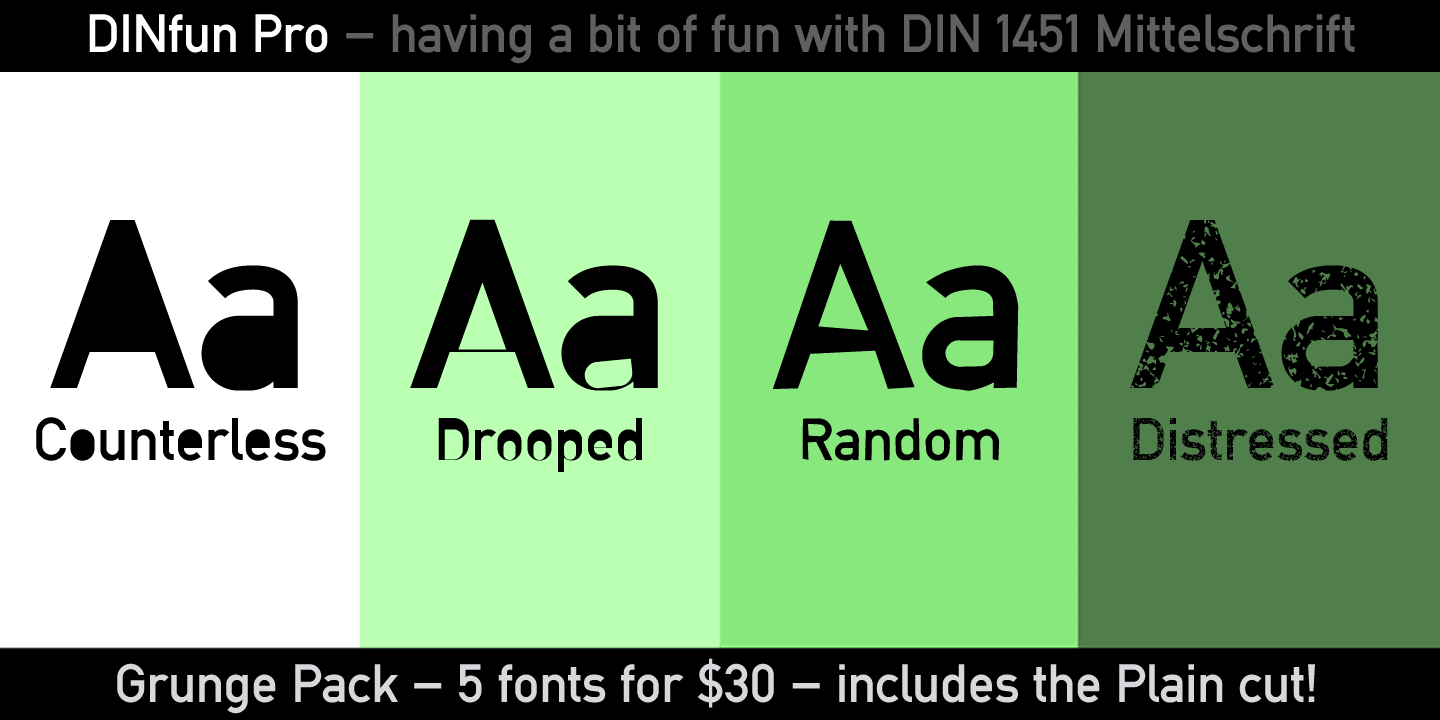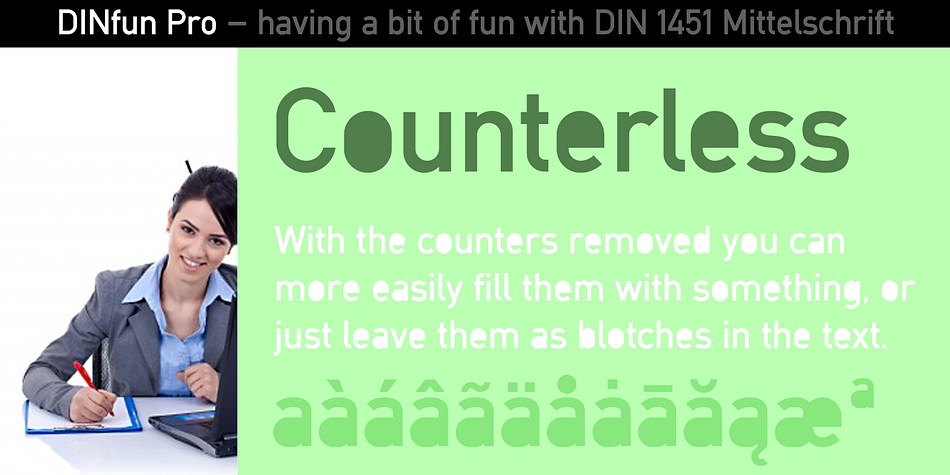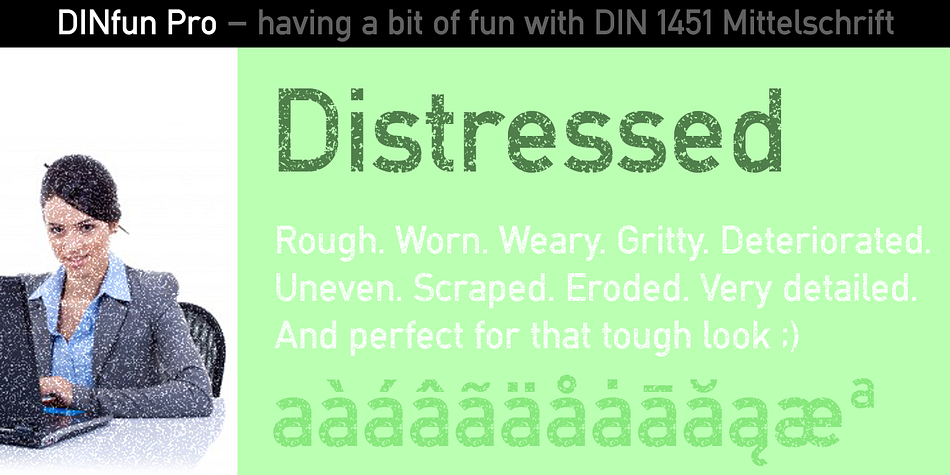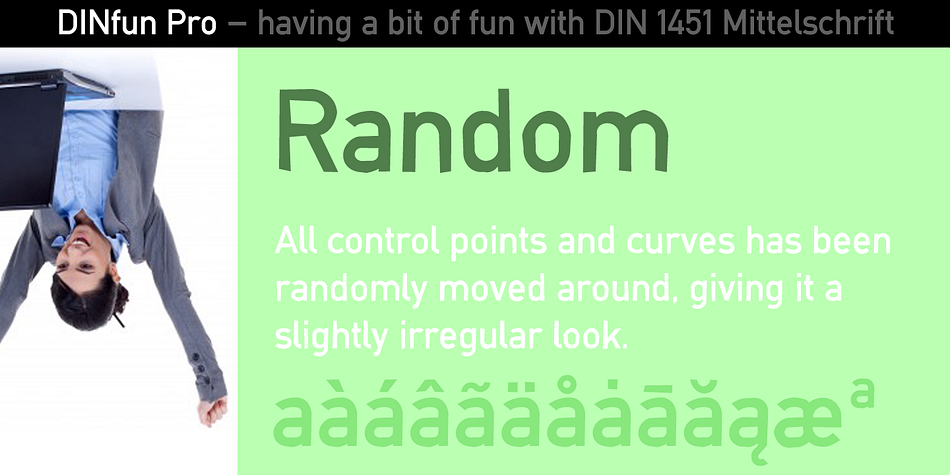
DINfun Pro Grunge is a multiple classification font family. This typeface has five styles and was published by CheapProFonts.
A collection of DIN Mittelschrift variants with some typical grunge style treatments. The Plain font is included if you buy the family pack, and can be mixed in.
The DINfun Pro fonts are special versions of the classic DIN 1451 Mittelschrift, far removed from the original typeface’s serious and no-nonsense roots. I have made them as companions to the classic, with some some very different expressions, complete with a large multilingual character set. Time to spice up that DIN profile! :)